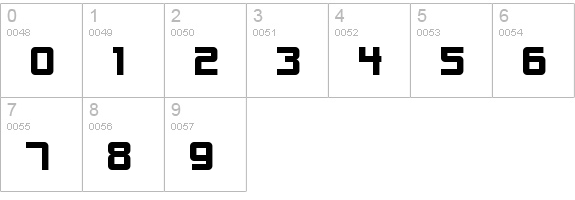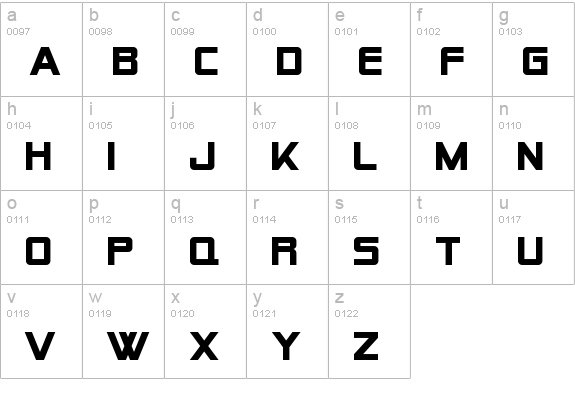
Alien Encounters Solid Bold Font Details
Alien Encounters Solid Bold is a strong, high-contrast variant in the Alien typeface family \xE2\x80\x94 well suited to headlines, attention-grabbing titles, and strong calls-to-action.
Alien Encounters Solid Bold font is a futuristic and eye-catching typeface designed to make a bold statement in your projects. With its unique and otherworldly appearance, this font is perfect for grabbing attention and adding a touch of extraterrestrial charm to your designs. The solid and bold characters make it ideal for headlines, titles, and logos that need to stand out. Best of all, Alien Encounters Solid Bold font is available for free download at FontsMarket.com. So, whether you're working on a sci-fi movie poster, a space-themed website, or a futuristic branding project, this font is a must-have in your design arsenal. Add a touch of intergalactic flair to your creations with Alien Encounters Solid Bold font today!